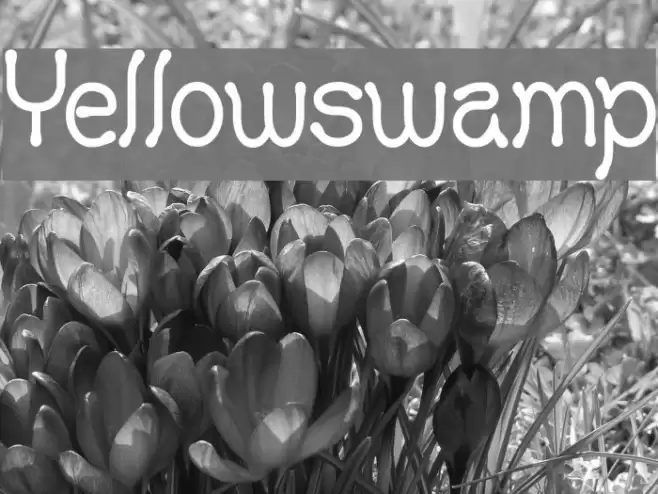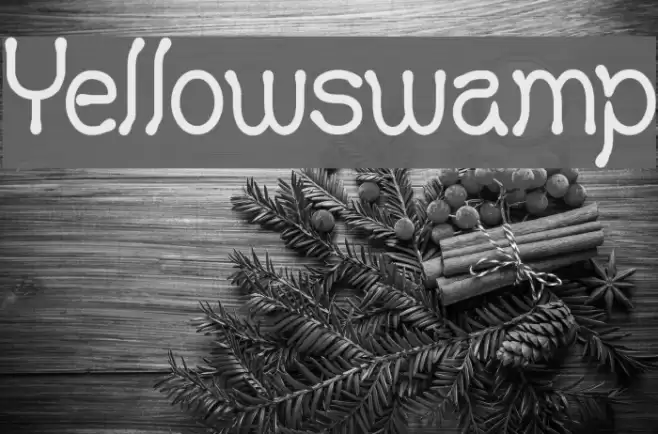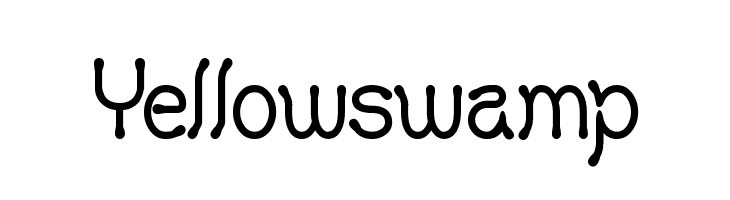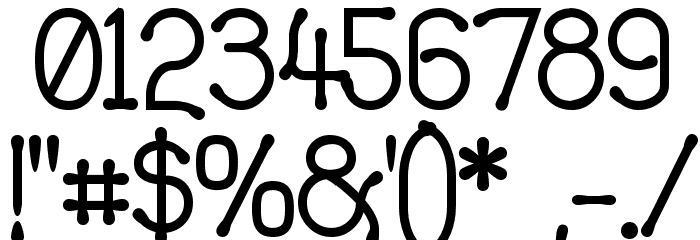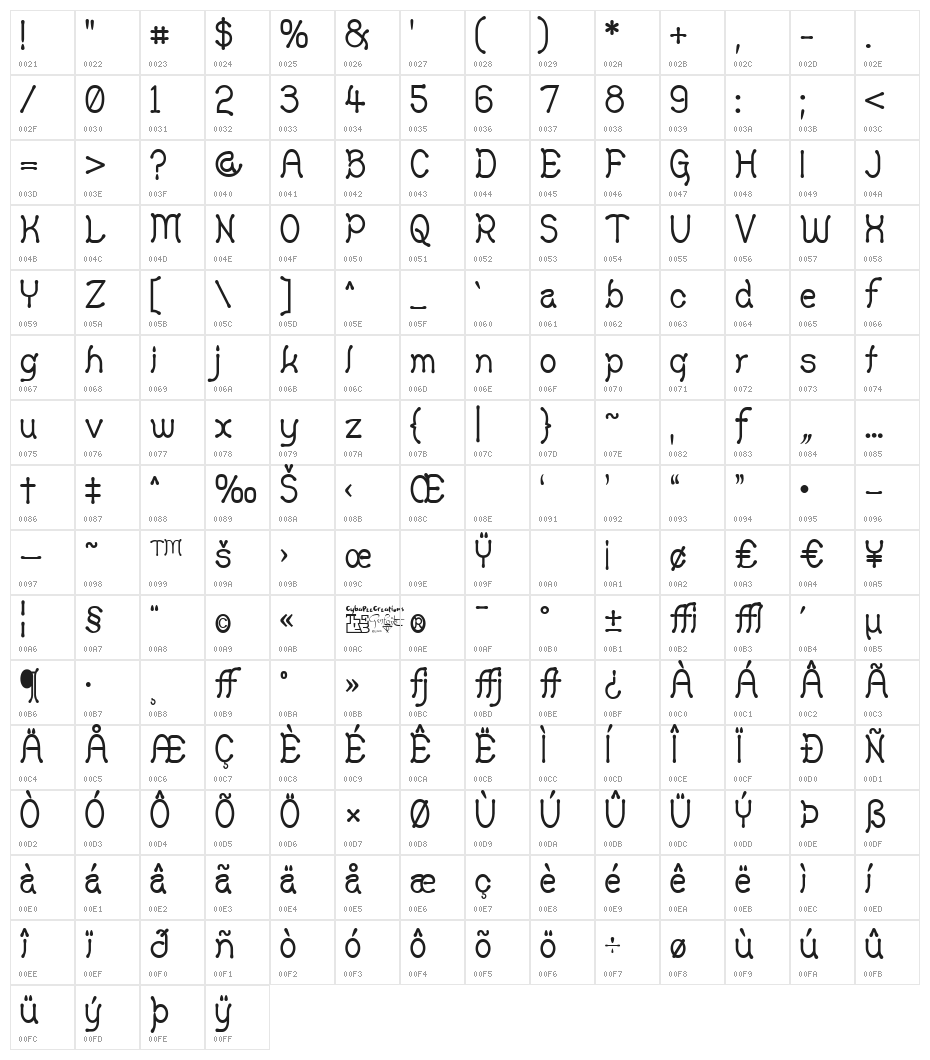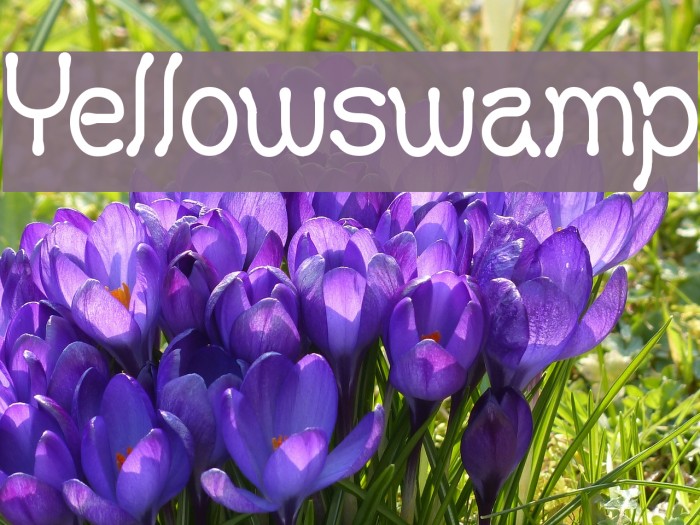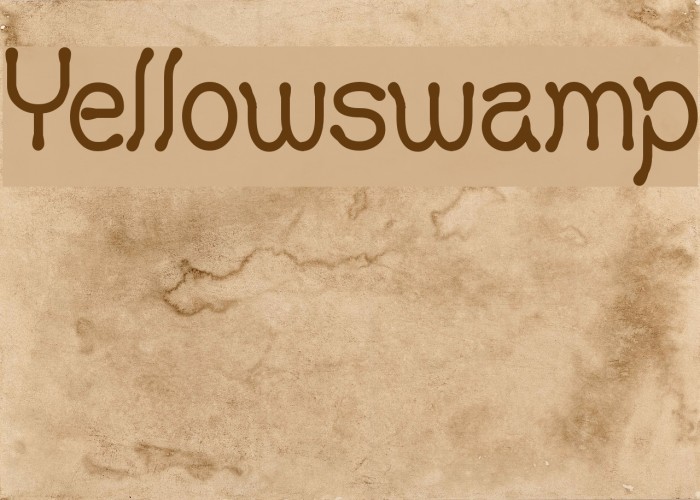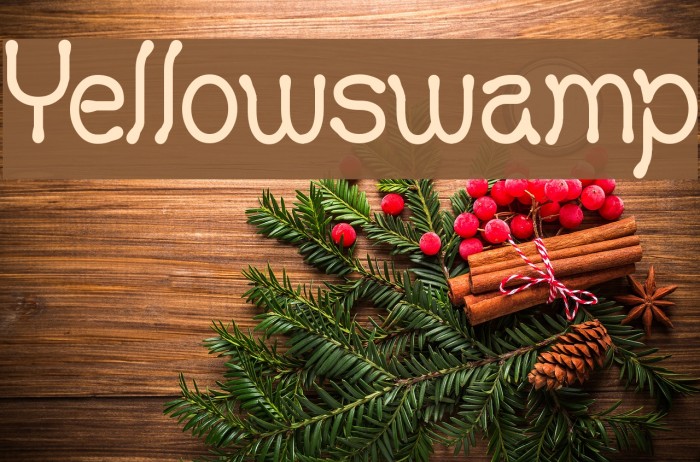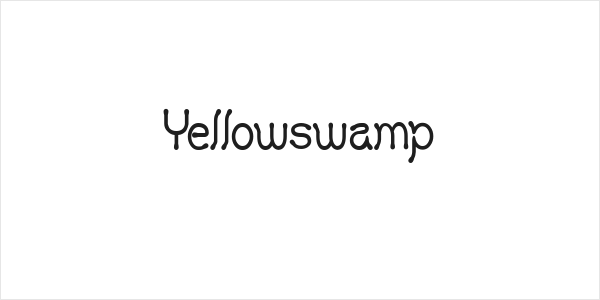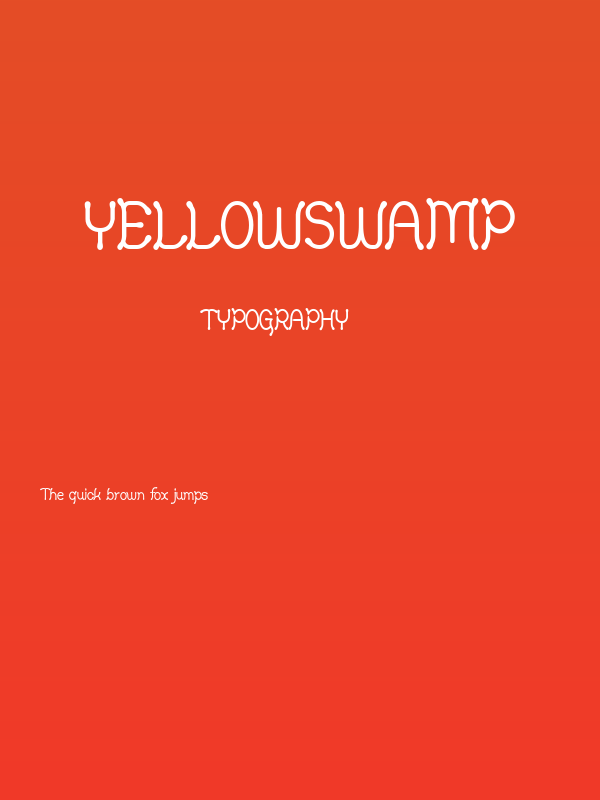
Yellowswamp Font
Yellowswamp Description
This font features a playful and whimsical design with rounded edges and a hand-drawn appearance. The characters are bold and slightly irregular, giving them a unique and friendly look. The uppercase and lowercase letters maintain a consistent style, with a slight slant that adds to the casual feel. The numerals and special characters are equally distinctive, with a similar rounded and bold aesthetic. This font is perfect for projects that require a fun and approachable vibe, such as children's books, playful branding, or creative posters.
A playful, hand-drawn font with rounded edges and a whimsical style from Uncategorized fonts.
- Proposed Projects: Ideal for children's books, playful branding, creative posters, and casual invitations.
- Overall Style: Playful